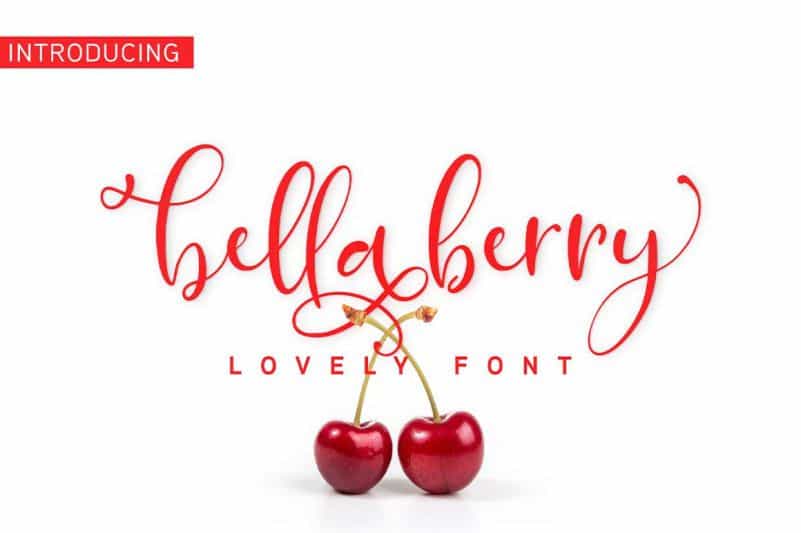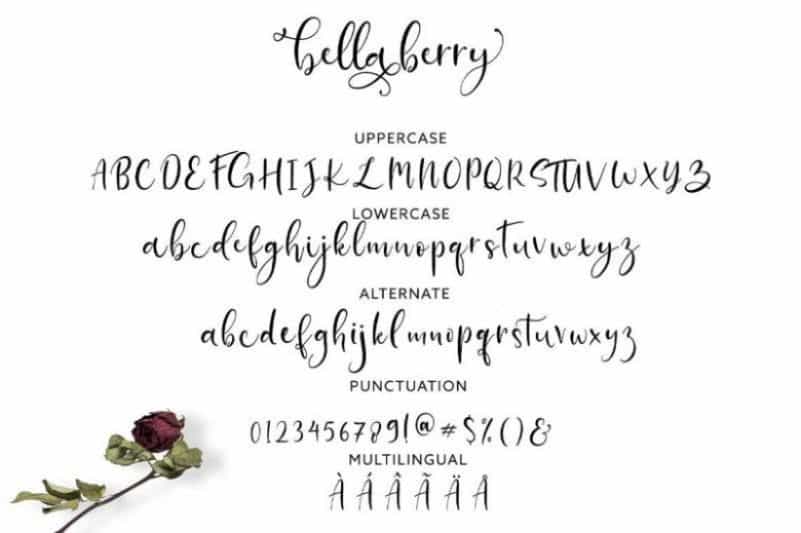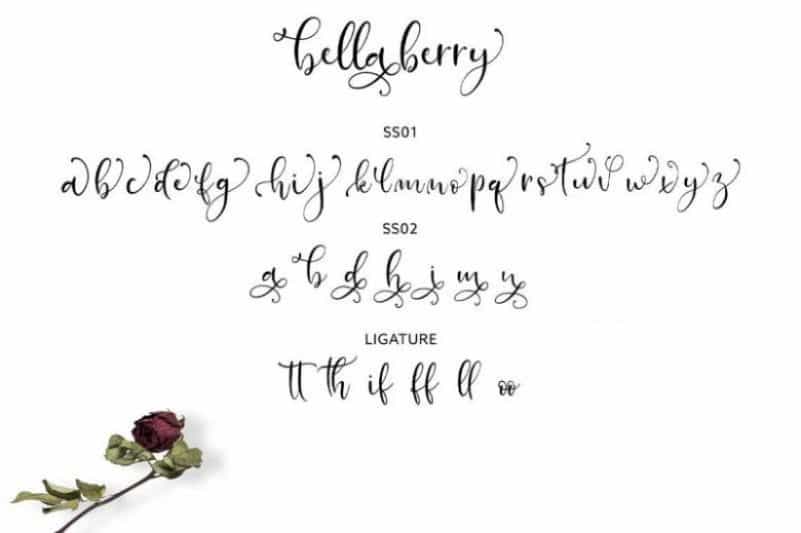
BellaBerry is a handmade font and is created with passion and love. This script is indeed very neat and comes in many forms, the lines are smooth and not rough, and it is not marked much. This one was created and published by Juncreative. It is a beautiful script that comes with uppercase letters, lowercase letters, multilingual characters, numbers, symbols and lower case swashes.